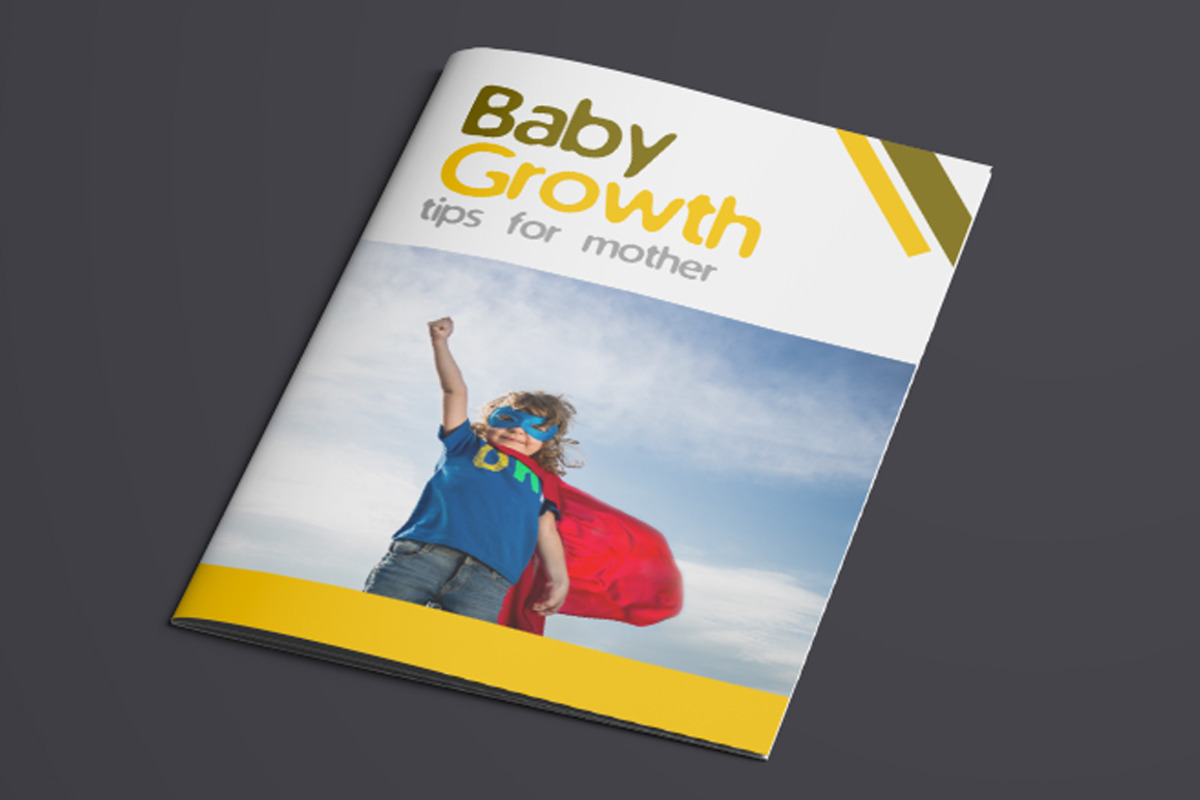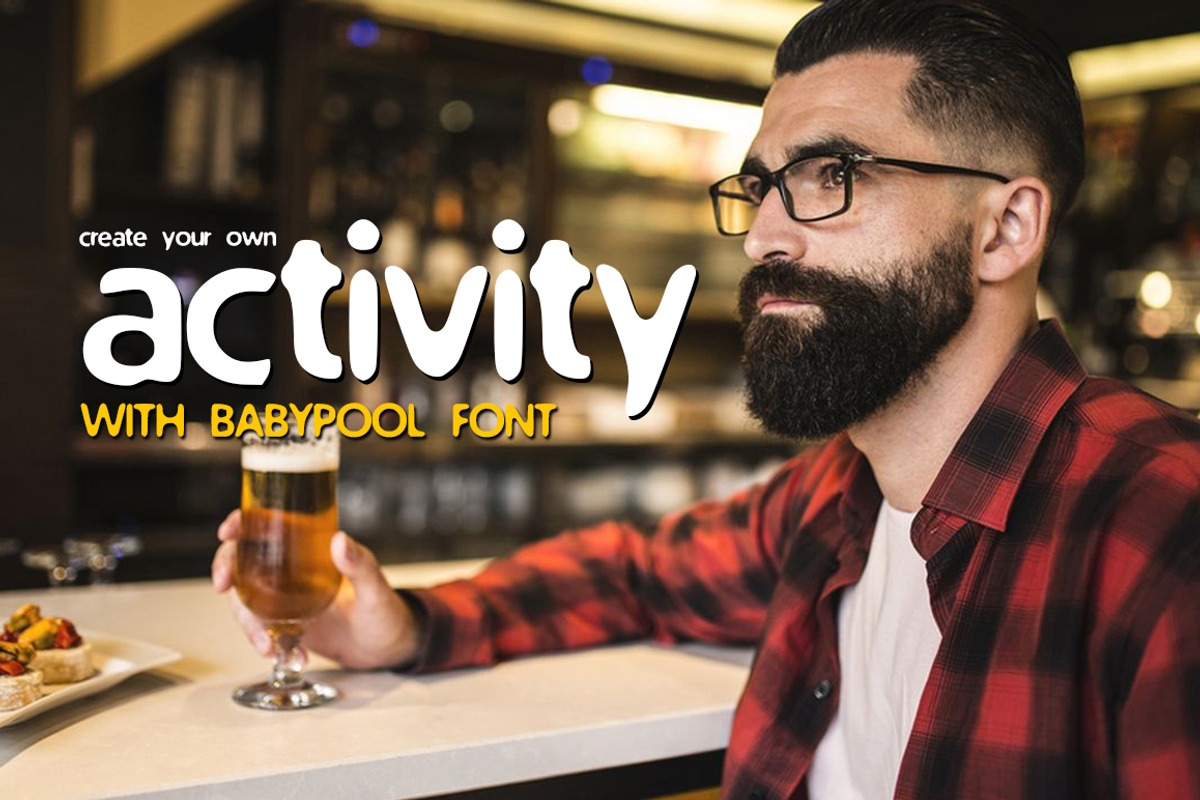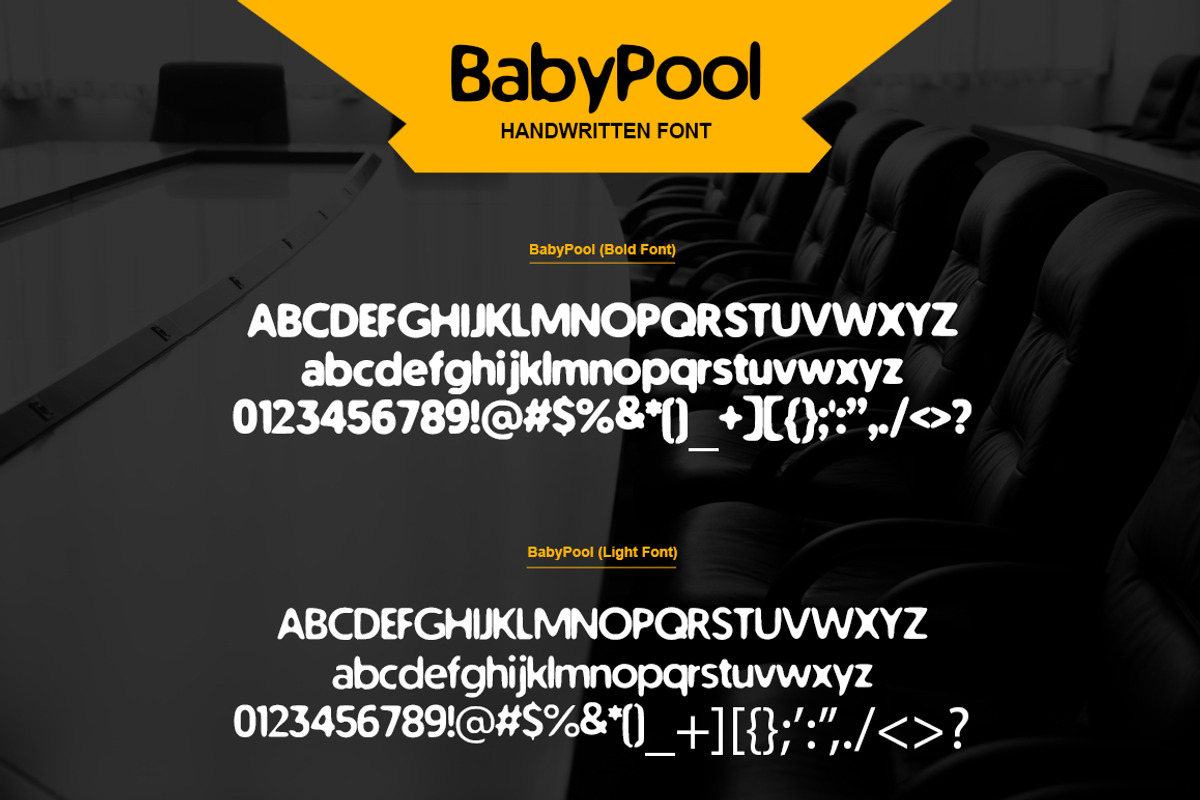
BabyPool New Font : New Typeface
BabyPool New Font : New Typeface by ContestDesign is a font selected for branding, posters, packaging, typography.
Why BabyPool New Font : New Typeface is worth a look
BabyPool New Font : New Typeface by ContestDesign fits naturally into Branding, posters, packaging, typography.